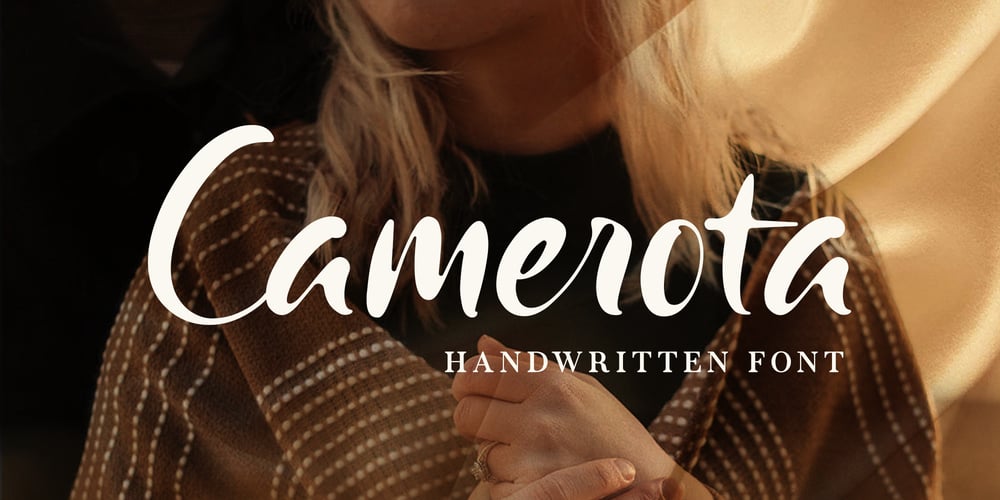
Camerota Font Family was designed by Dwi Ahidian and published by Lemonthe. Camerota contains 1 styles and family package options. Camerota is a relaxed handwritten font. It’s perfect for branding, stationery design, social media, packaging, magazine layout, prints, and more.